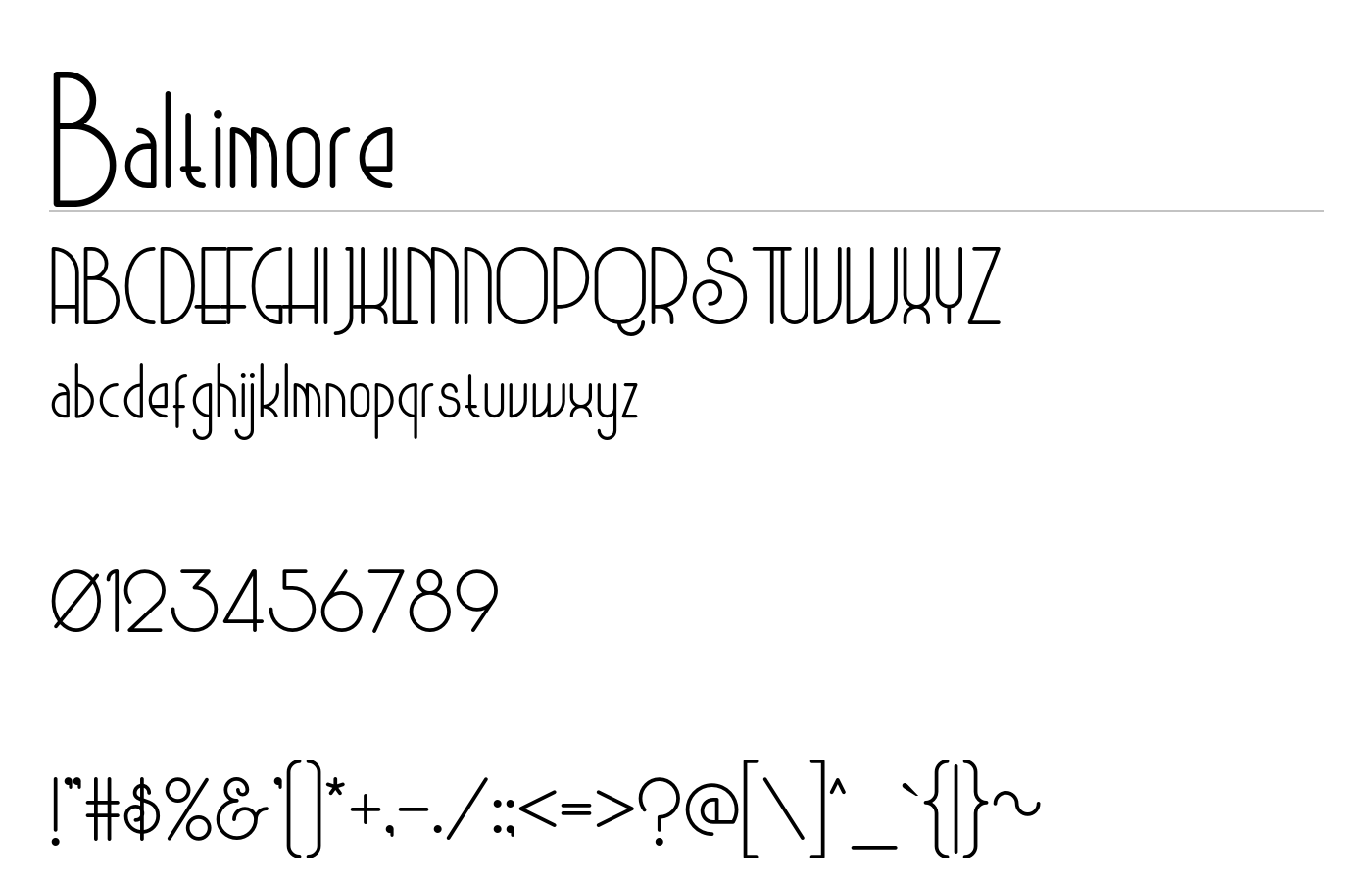
Baltimore is a slender, sans serif font with a whimsical and slightly vintage feel, featuring tall, narrow letterforms and minimal stroke contrast. Its clean lines and unique character shapes give it a playful yet elegant personality, making it a great choice for creative branding, editorial headlines, and stylish packaging where a light, airy look is desired. This font works well when you want to convey sophistication with a touch of fun and individuality.
Baltimore Font
About Baltimore Font
| Font family | Baltimore Font |
| Designer | Dicky Syafaat |